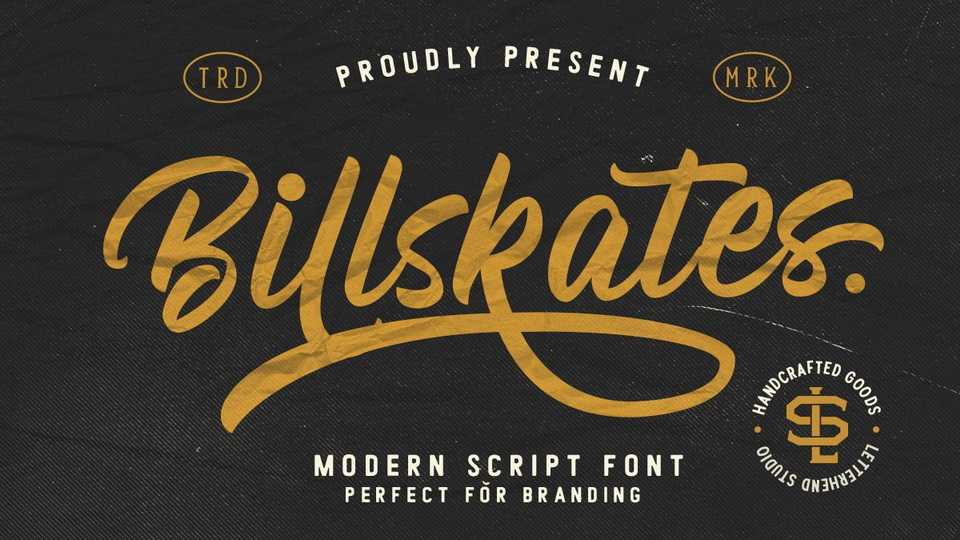
Download Billskates font, a modern and dynamic typeface. Billskates font perfectly made to be applied for logo, labels, magazines, books, greeting and wedding cards, packaging, fashion, or any type of advertising purpose.